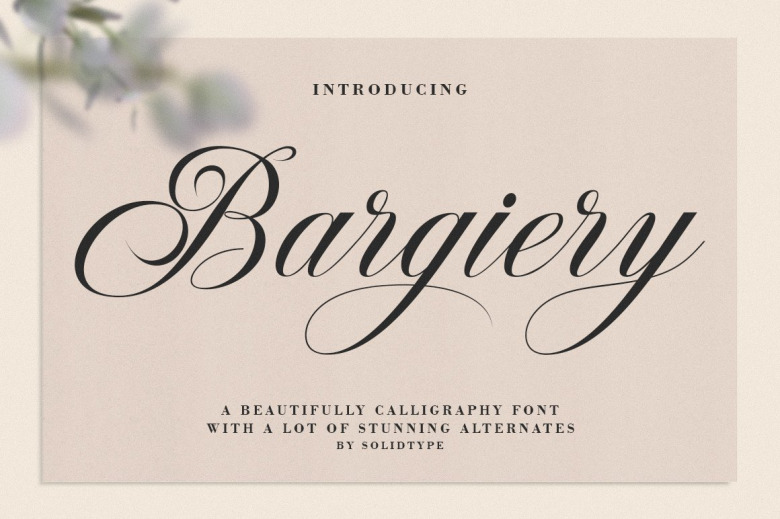
Bargiery – Calligraphy script. Bargiery is a beautiful and elegant script typeface with many alternatives and italics. so that it is very suitable for use, especially in logos, and various other formal forms such as invitations, labels, logos, magazines, books, greeting, wedding card packaging, fashion, make-up, stationery, novels, labels or whatever type of advertising.
Bargiery Calligraphy Script Font